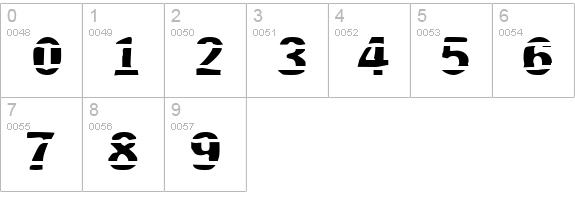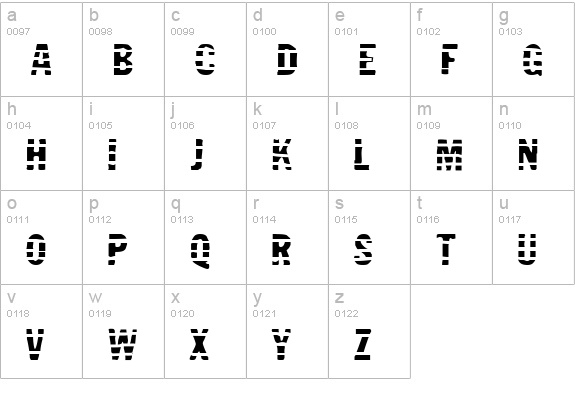
Jailbird Font Details
Introducing Jailbird font, a captivating and edgy typeface that will instantly transport your designs to a world of rebellion and intrigue. With its bold and rugged letterforms, this font exudes a sense of raw power and untamed spirit. Jailbird font is perfect for projects that require a touch of rebelliousness, such as album covers, movie posters, or streetwear branding. Its distinctive characters, with their sharp edges and dynamic curves, effortlessly capture attention and leave a lasting impression. But what truly sets Jailbird font apart is its unique feature - it is free. Yes, you read that right. This extraordinary font can be freely downloaded at FontsMarket.com, providing you with unlimited creative possibilities without breaking the bank. Whether you're a professional designer or a passionate enthusiast, Jailbird font offers a refreshing alternative to the mundane and predictable. It allows you to break free from conventional design norms and make a statement that is truly your own. So, why wait? Embrace the rebellious spirit of Jailbird font and unleash your creativity. Download it for free today at FontsMarket.com and witness how this extraordinary font elevates your designs to new heights. Let Jailbird font be your accomplice in creating visually arresting and unforgettable masterpieces.